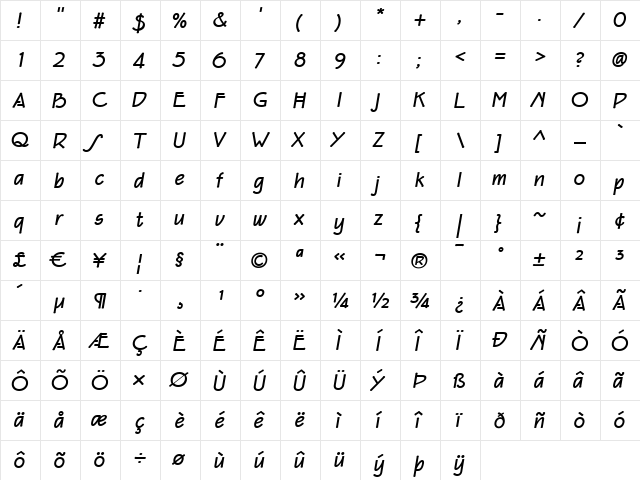
P22Eaglefeather Bold Italic
Design Context for P22Eaglefeather Typeface
P22Eaglefeather offers clean, dependable letterforms without strong stylistic allegiance, making it a practical choice for designers who need flexibility. Its italic angle brings a sense of urgency and motion to the letterforms. The heavy weight commands attention and anchors typographic hierarchies.